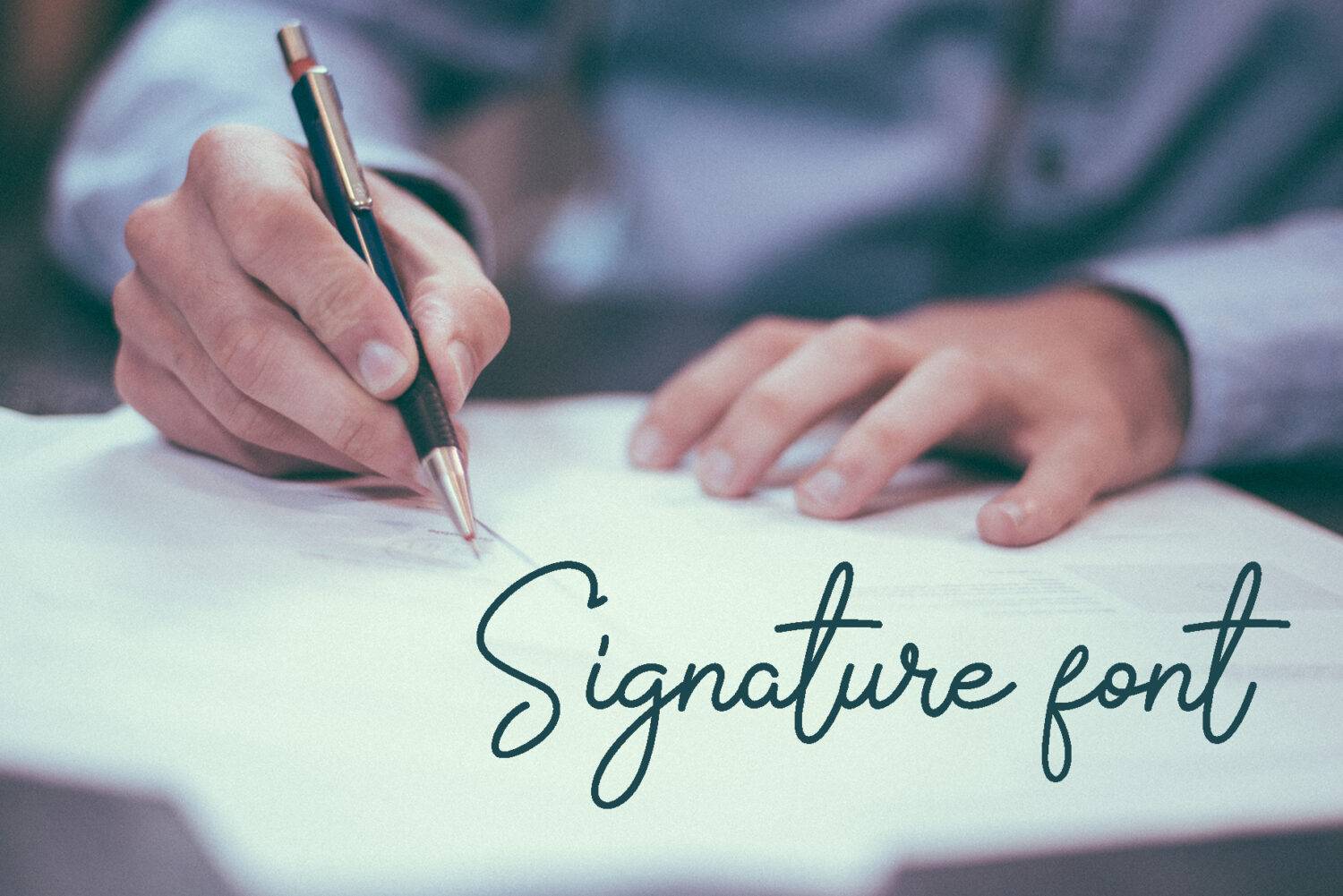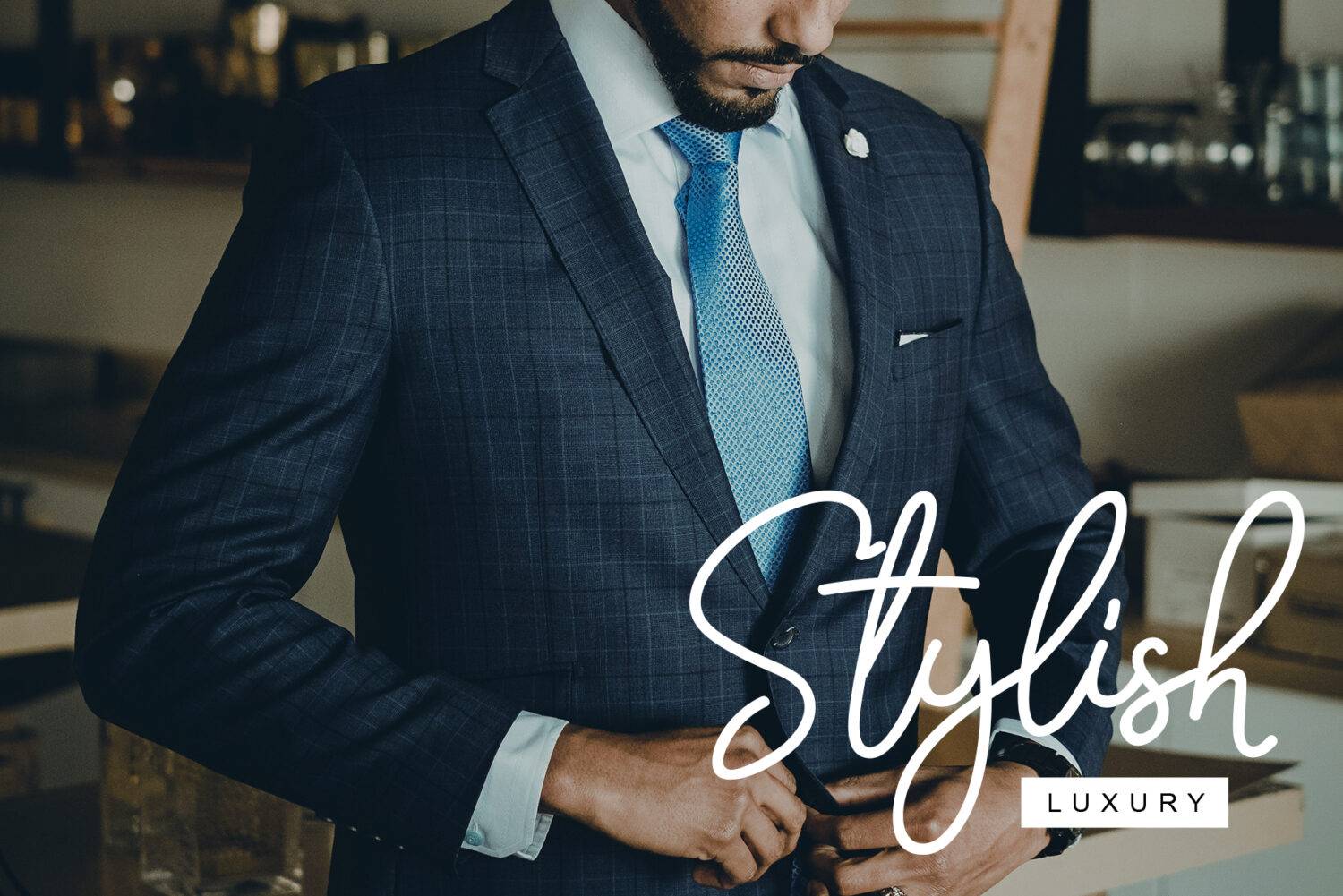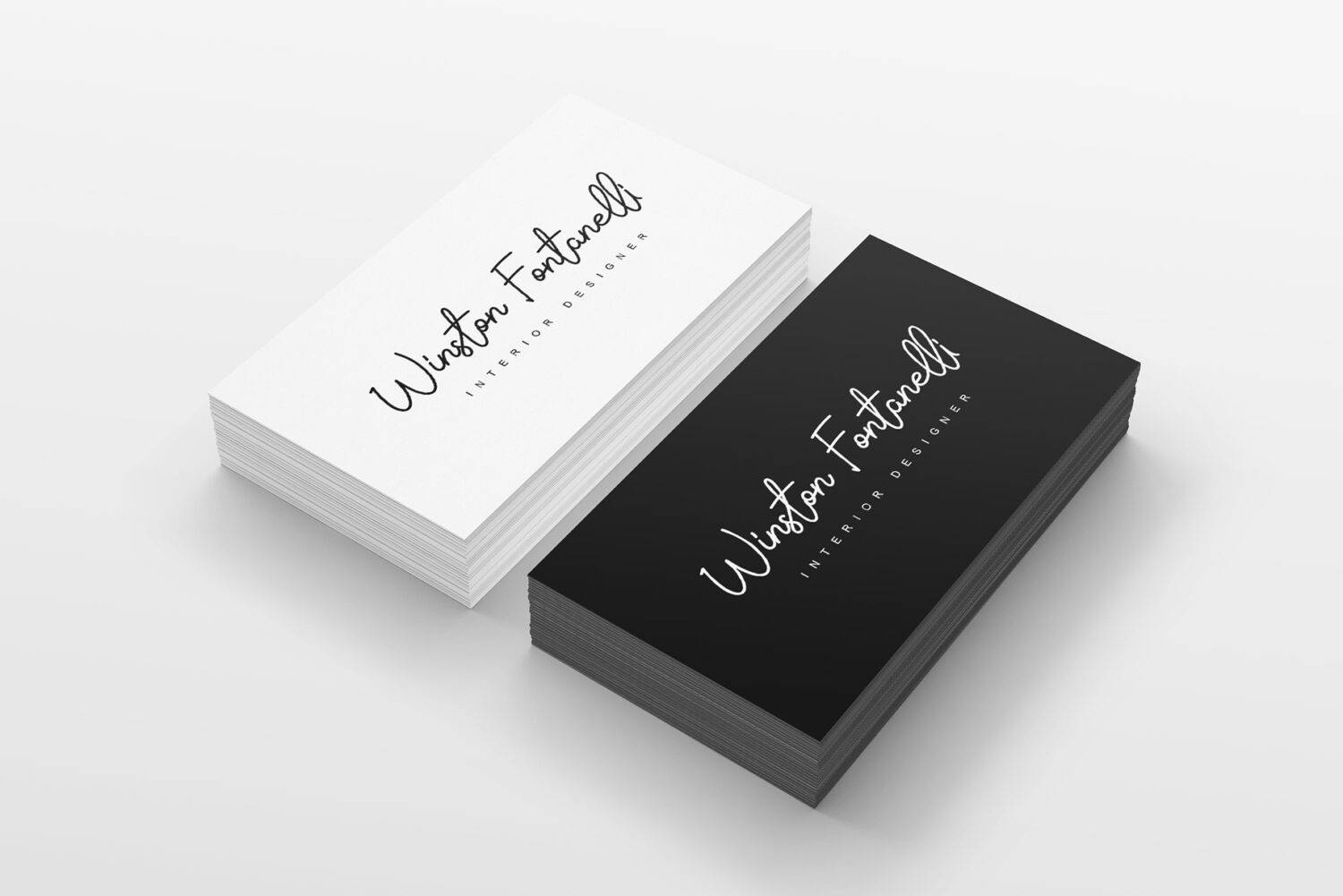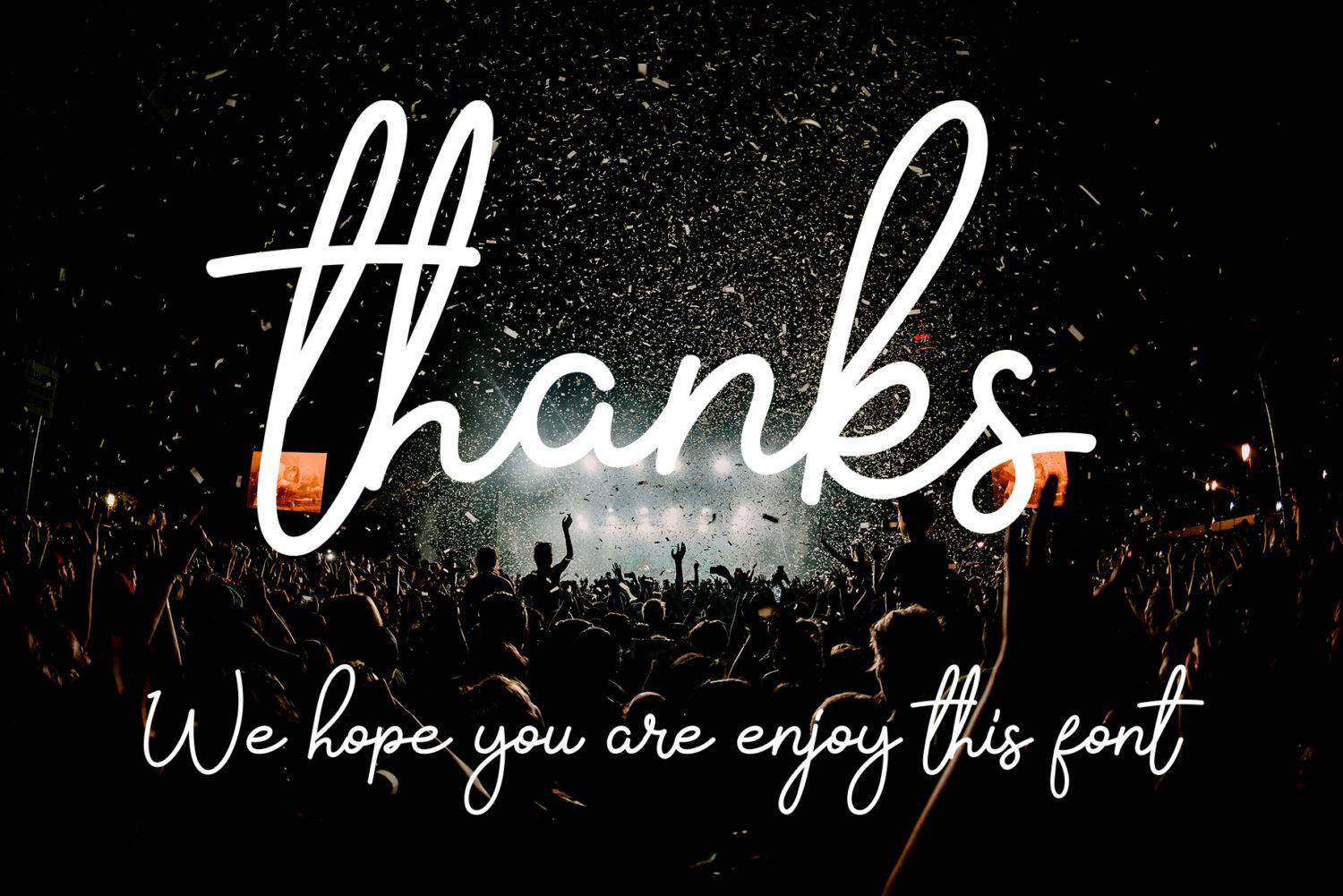
The Signate Font is a delicate, handwritten script that exudes a casual yet elegant charm. Its slender strokes and flowing letterforms give it a personal, signature-like feel, making it perfect for branding, invitations, and creative projects that seek a warm, approachable touch. This font works beautifully for designs that need a refined but friendly handwritten style.
The Signate Font
About The Signate Font